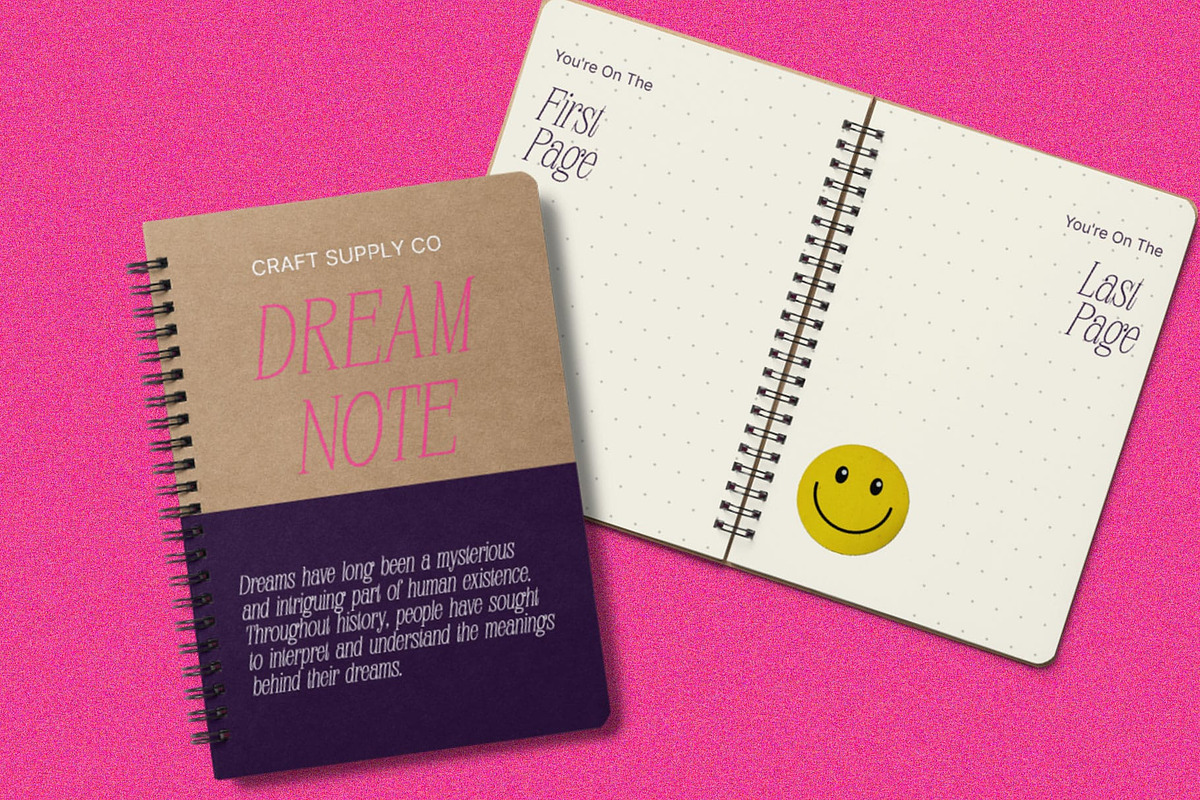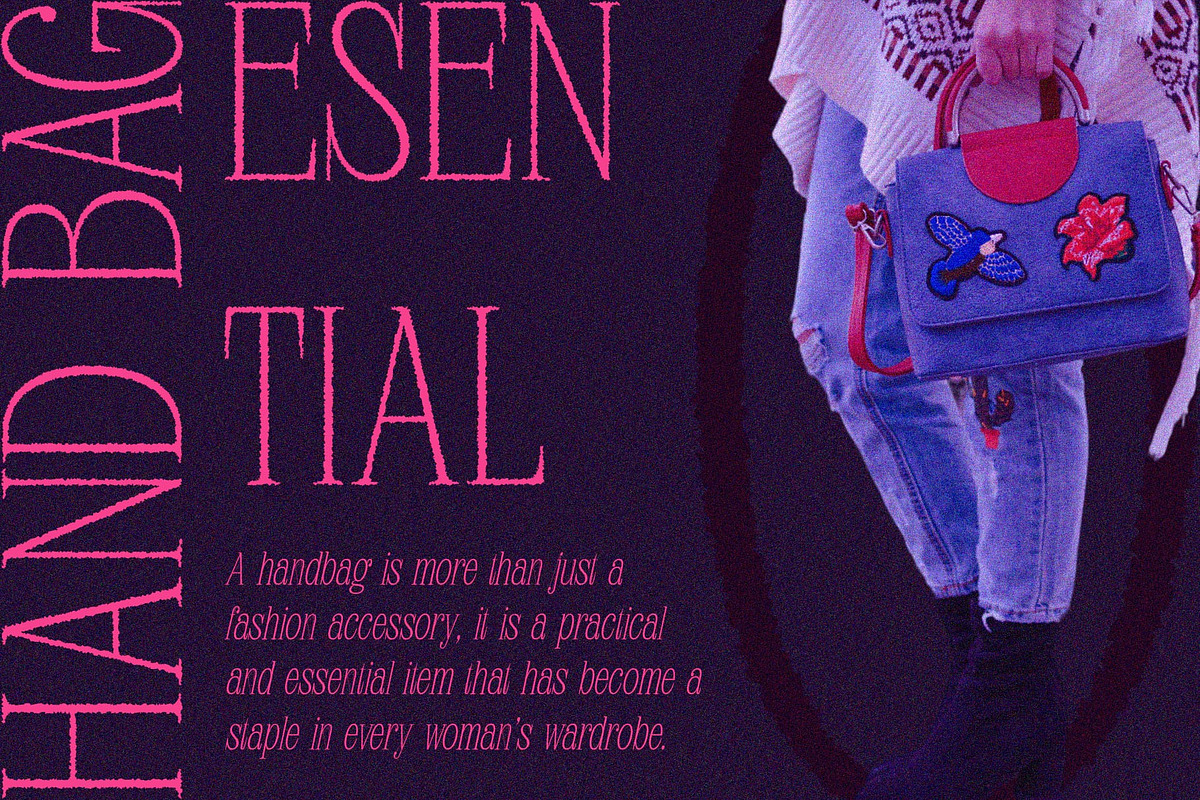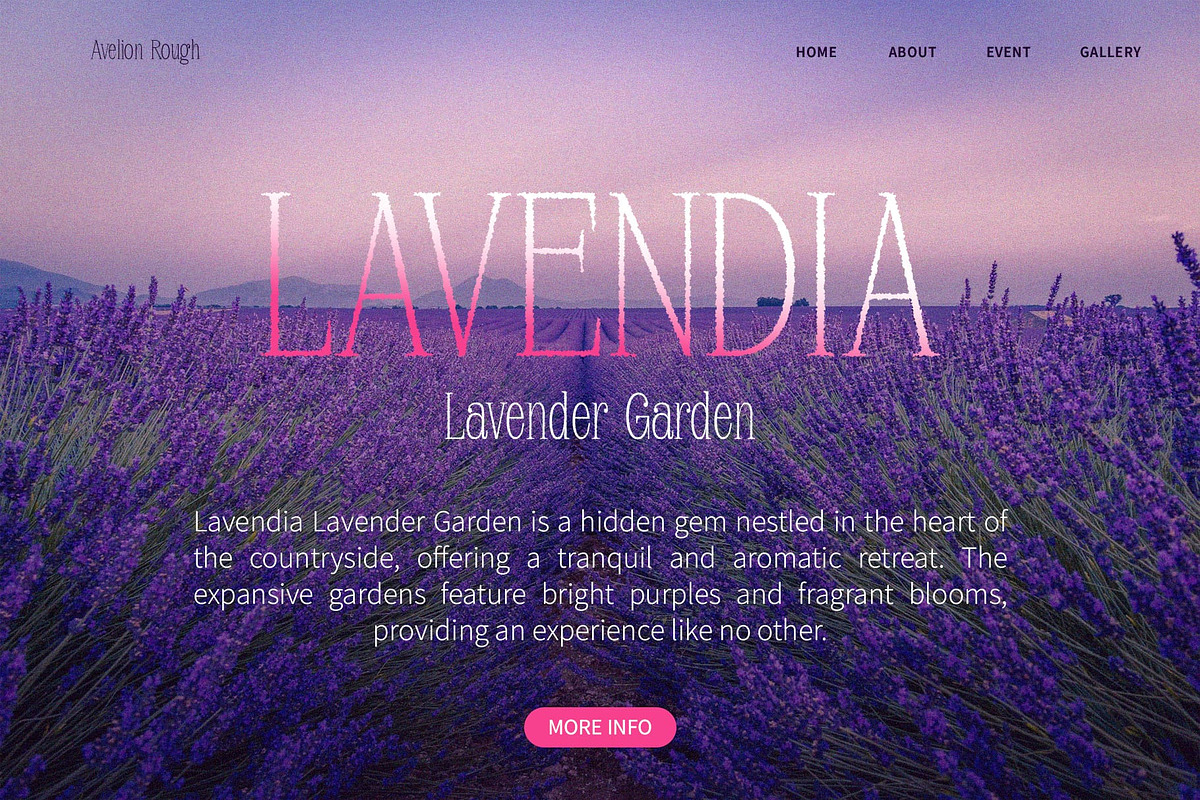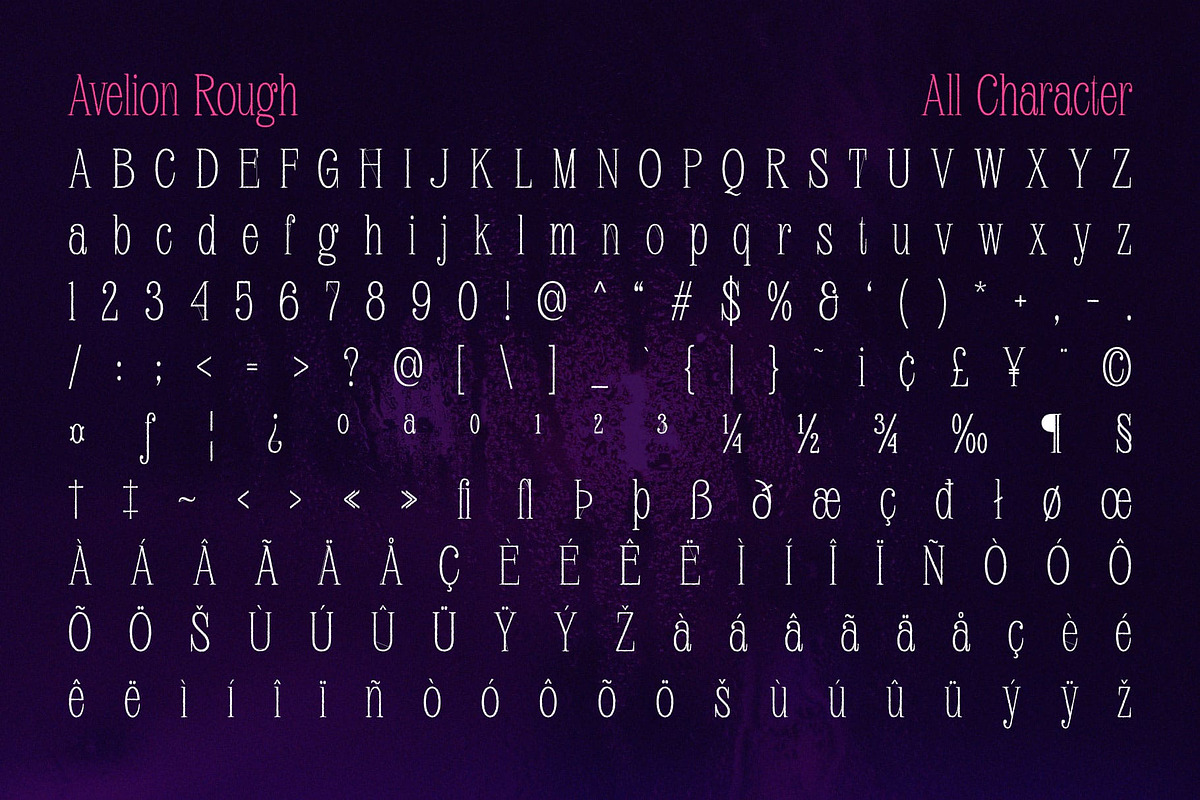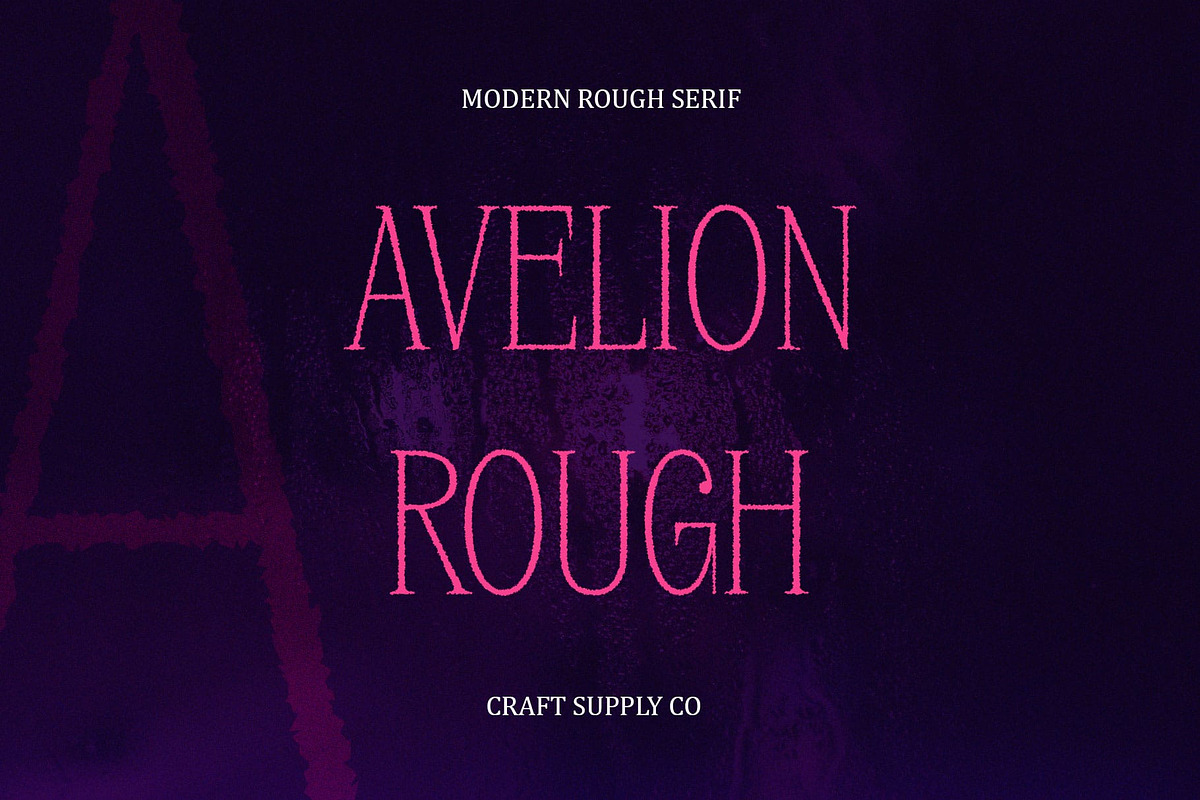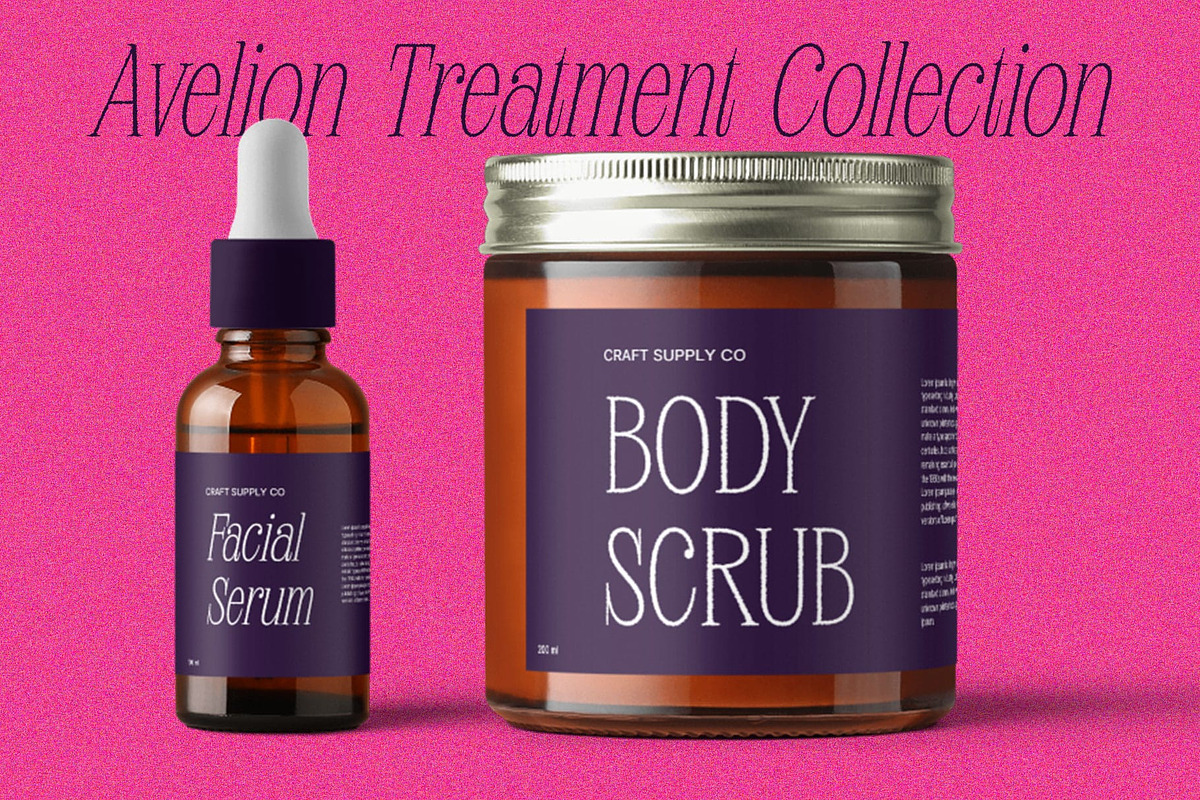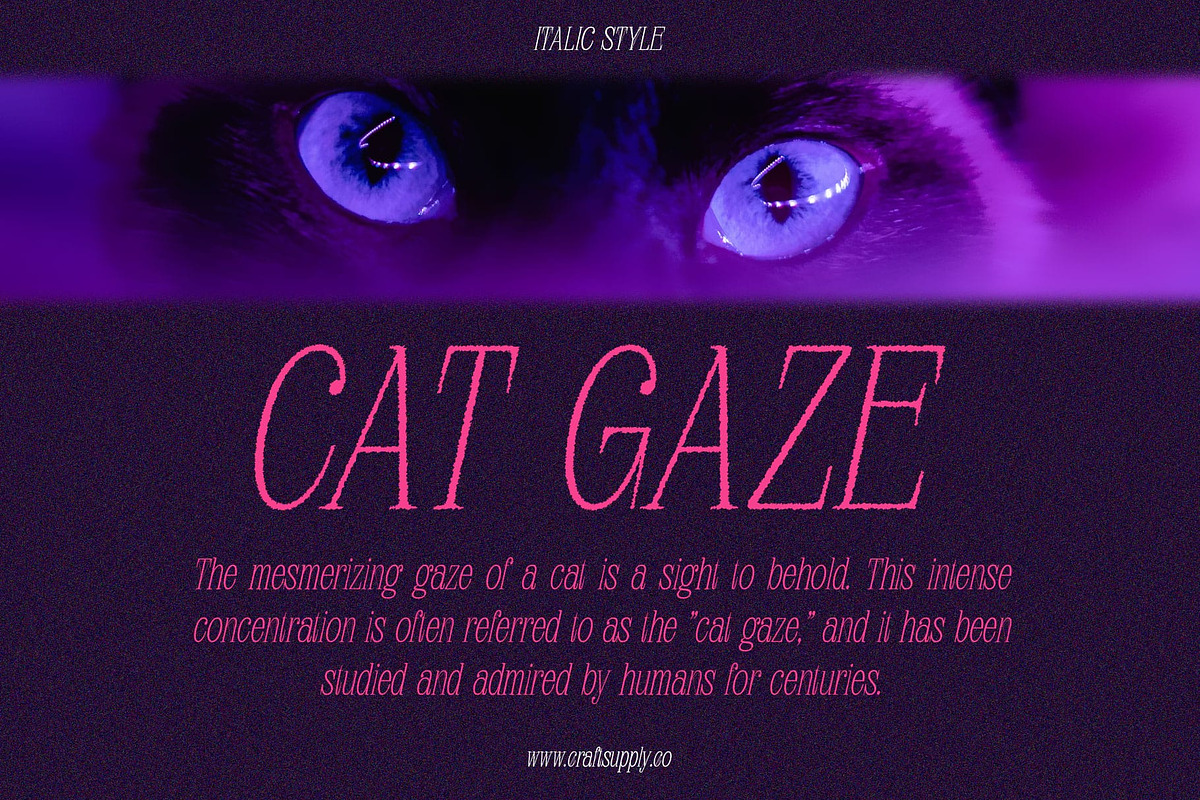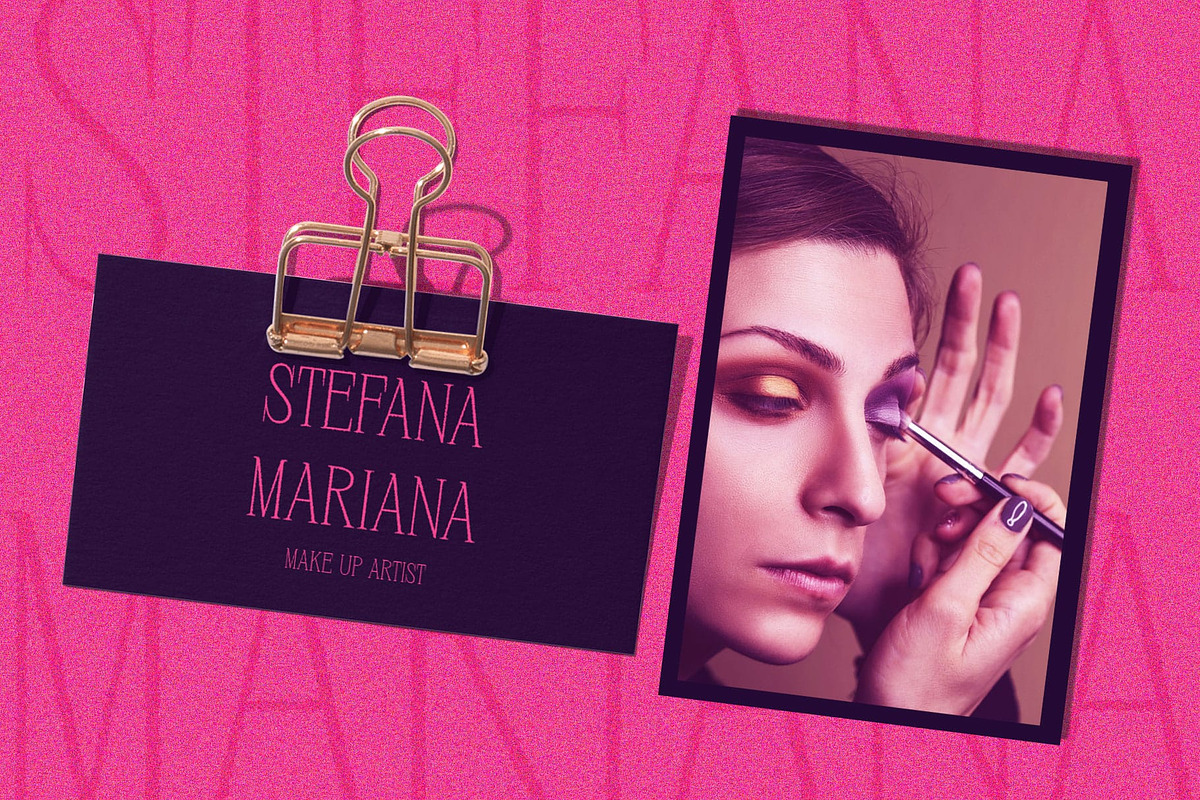
Avelion Rough
Avelion Rough: Embracing Classic Vintage Charm
Classic Low Contrast Design Avelion Rough boasts a classic low-contrast condensed serif design that exudes timeless elegance. Its refined proportions and subtle curves capture the essence of traditional typography.
Vintage Rough Effect Enhanced with a rough effect, this font carries a vintage aesthetic that harks back to the charm of yesteryears. The rough texture adds depth and character, giving This font a distinctive appeal.
Ideal for Display With its condensed serif design and vintage rough effect, This font is ideal for display purposes. It commands attention and adds a touch of sophistication to headlines, logos, and branding materials.
Versatile Application Despite its vintage-inspired look, This font is versatile in its application. From retro-themed designs to modern projects seeking a hint of nostalgia, this font offers flexibility and style.
Timeless Elegance with a Vintage Twist This font combines classic design elements with a vintage rough effect, resulting in a font that is both elegant and nostalgic. Perfect for a wide range of applications, it brings a touch of timeless charm to any project.